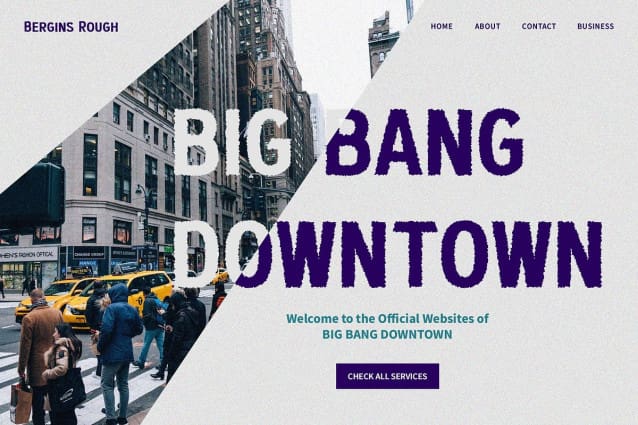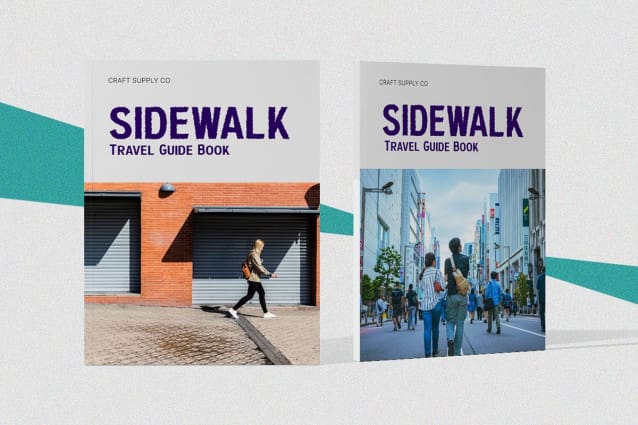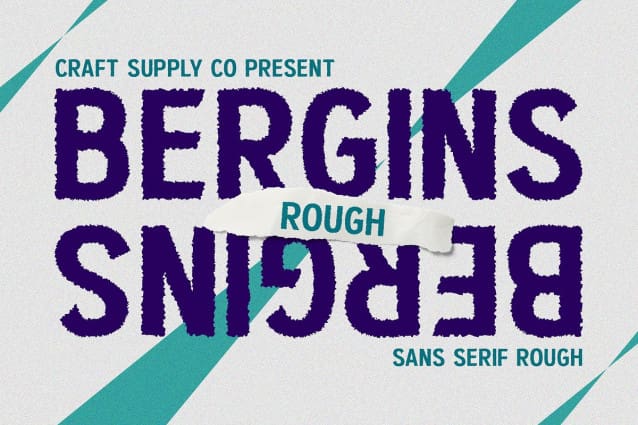
Bergins Rough Font
Bergins Rough Font a striking sans serif design, exuding boldness and modernity in every character. Its robust appearance commands attention and ensures readability in any display setting.
Rugged Vintage Appeal With rough effects adding a vintage touch, This font stands out for its unique blend of boldness and retro charm. The rough texture gives it a weathered, aged look, perfect for conveying nostalgia and authenticity.
Versatile Display Font Tailored for display purposes, This font excels in various applications, from posters to product packaging. Its bold and rugged aesthetic makes it ideal for conveying strength and character in branding and advertising projects.
Effortlessly Eye-Catching This font effortlessly captures attention with its bold sans serif form and vintage-inspired rough texture. Whether used in digital or print media, it commands visual interest and ensures your message is noticed.
Bold Vintage Sophistication This font redefines vintage boldness with its bold sans serif design and rugged texture. Versatile and eye-catching, it adds a touch of retro charm to any display project, making it a go-to choice for designers seeking to make a statement with their typography.